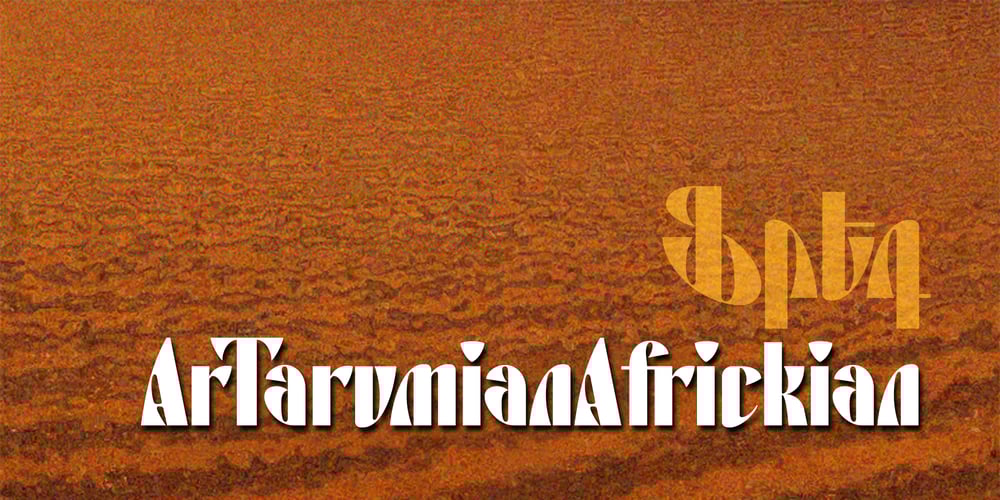
ArTarumianAfrickian Font Family was designed by Ruben Hakobyan (Tarumian) and published by Tarumian. ArTarumianAfrickian contains 1 styles and family package options. The influence for this font came from the Fred Africian’s uppercase letter composition shapes, published in “The Art of Letter-type” album, Yerevan, 1984.